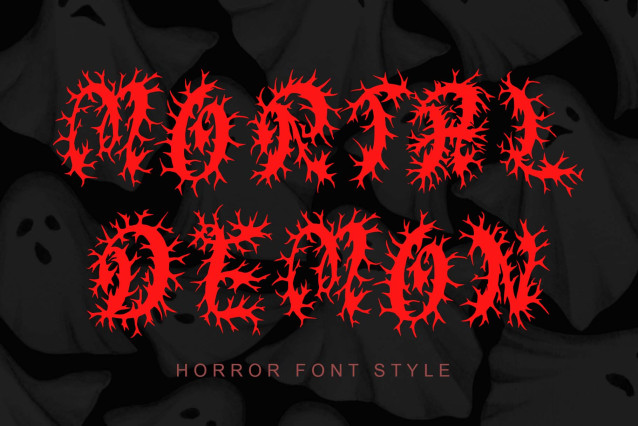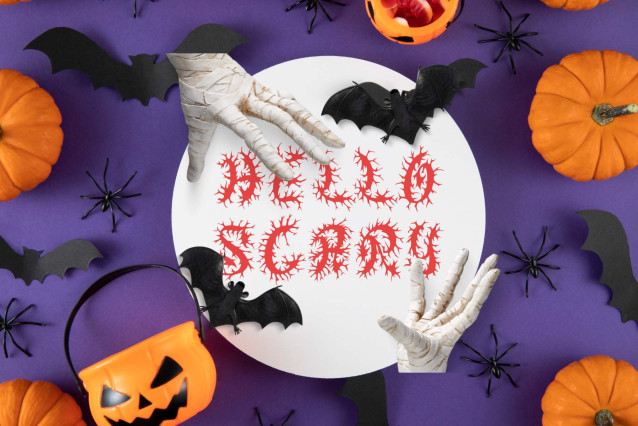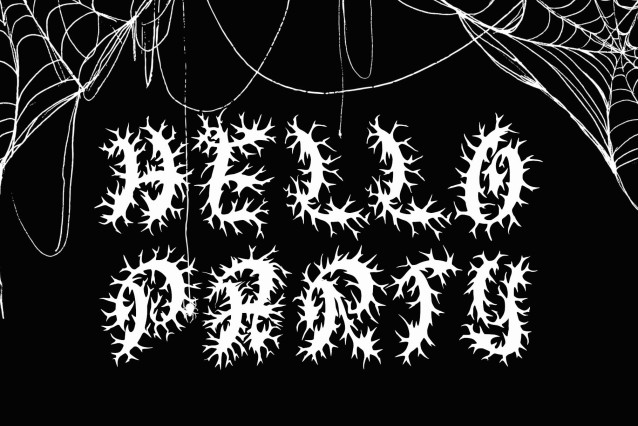
Mortal Demon Font
Mortal Demon Font is a fierce and chaotic horror display font with razor-sharp edges and a demonic aesthetic. Its jagged, flame-like forms evoke terror and intensity—perfect for metal band logos, horror movie posters, Halloween graphics, and anything that demands a brutal, unforgettable presence.